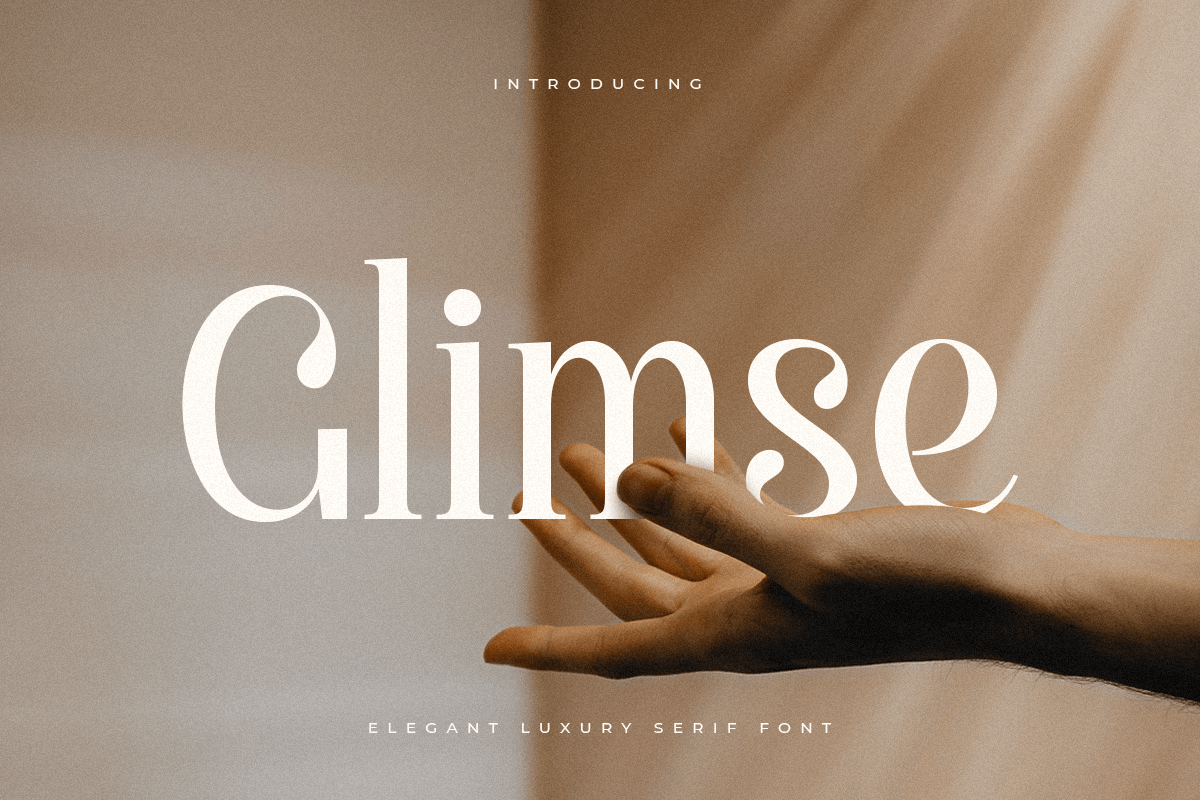
Glimse
A serif font that we created special for elegant branding needs, with extra ligature and alternates in unique shape will be ready to add value of your brand. It so nice to leverage designer or product owner that need solutions to make their design look more classy and modern. And specially for Glimse font, We prepared any ligatures, and any alternate characters to help you create unlimited variations for your creative needs.
Glimse serif font ready with:
Any options to get creative variations (combination of Alternate and Ligatures)
Preview as a inspirations that you can do with Glimse font